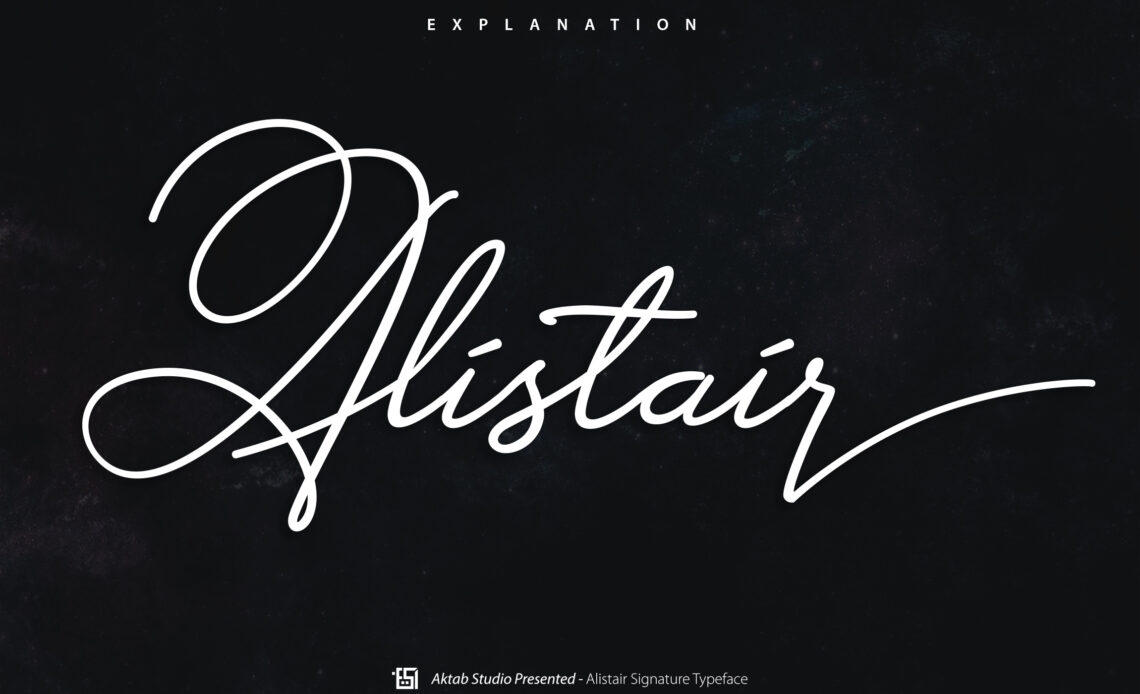
Journey into the realm of Alistair Font, a captivating monoline script that dances across your designs with grace and elegance. Crafted with meticulous care by Aktab Studio, Alistair's charm lies in its ability to blend professional poise with a touch of personal warmth, making it the perfect choice for adding a distinctive flair to your creative endeavors.
Step into a world of endless possibilities, where Alistair Font becomes your trusted companion in crafting captivating logos, branding materials, wedding invitations, product packaging, social media graphics, and website designs. Its versatility knows no bounds, adapting seamlessly to any project, any vision, any dream.
Alistair Font is the perfect companion for those seeking a font that exudes both sophistication and charm. Its beautiful lines and curves bring a sense of artistry to your designs, while its modern monoline style ensures a clean and contemporary look.
Unleash your creativity with Alistair Font's extensive character set, featuring uppercase and lowercase letters, numerals, punctuation, and a selection of stylistic alternates. Experiment with different combinations to create truly unique designs that captivate and inspire.
With Alistair Font by your side, you'll discover a world of creative possibilities. Embrace its allure and watch as your designs transform into captivating masterpieces that leave a lasting impression. Let Alistair Font be your artistic muse, your creative spark, and your trusted guide on the journey to design excellence.